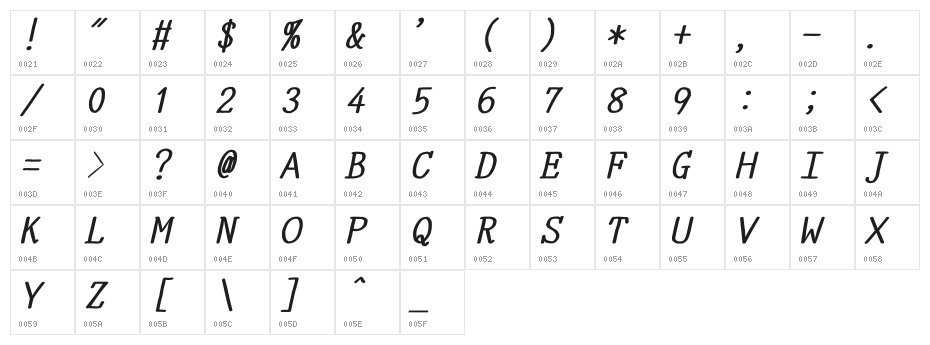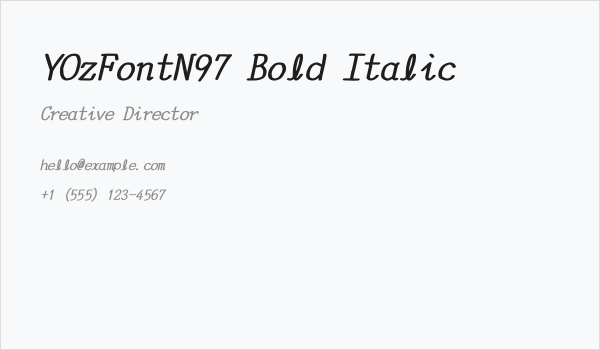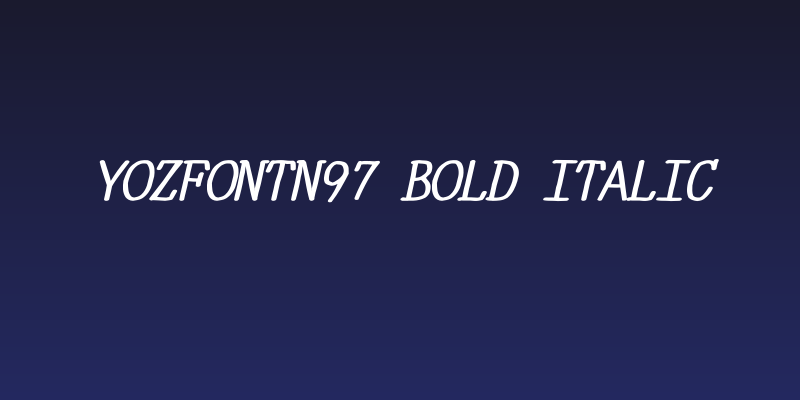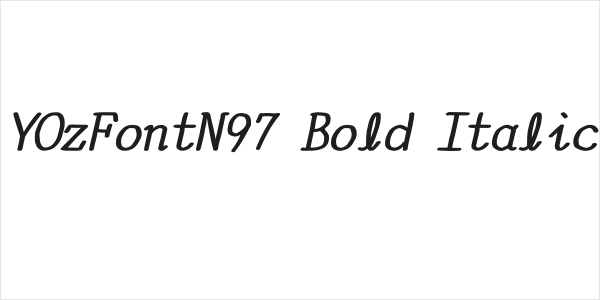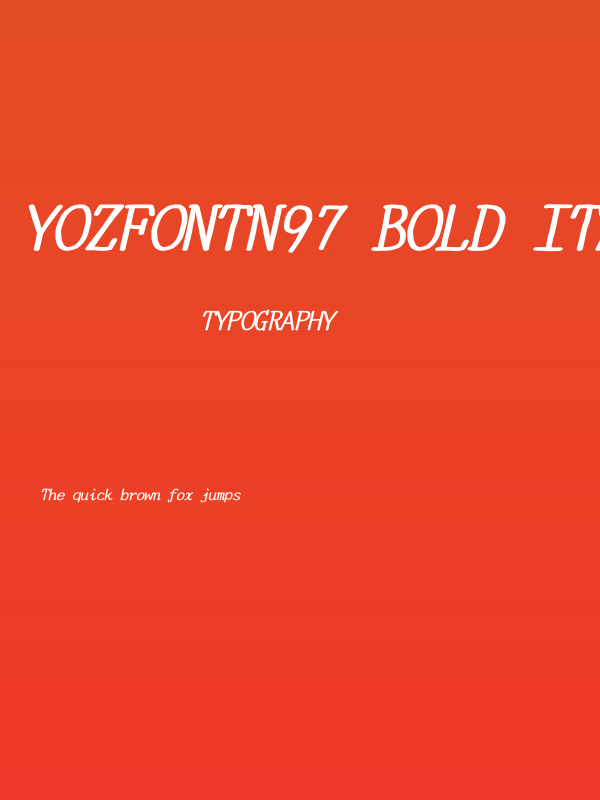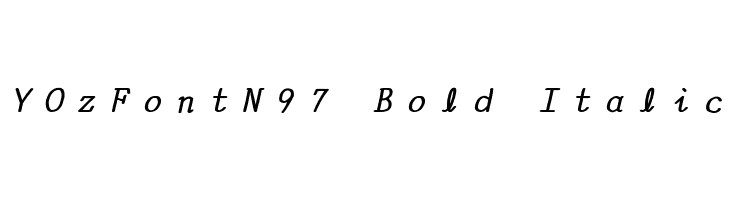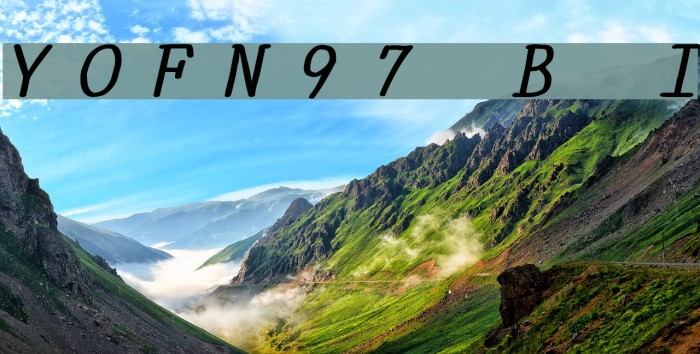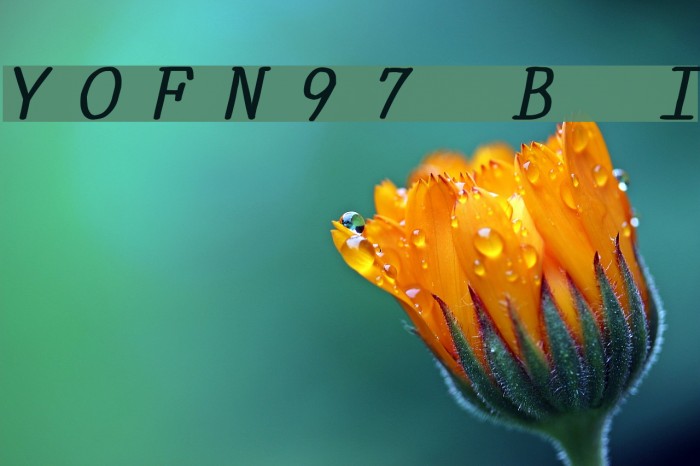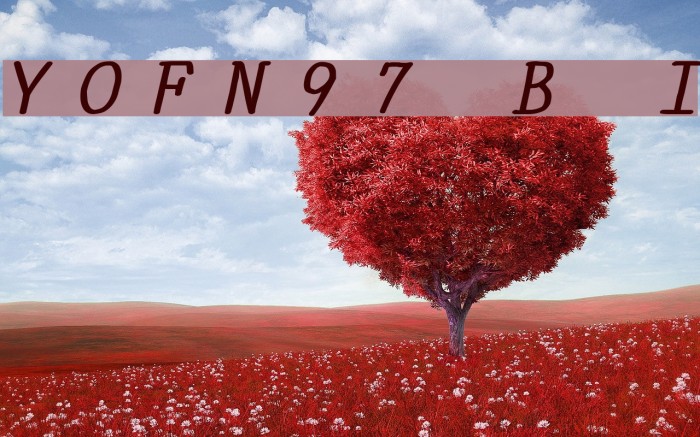
YOzFontN97 Bold Italic Font
YOzFontN97 Bold Italic Description
This font features a dynamic and expressive style with a bold and italicized appearance. The characters exhibit a slight slant, adding a sense of movement and fluidity. The strokes are moderately thick, providing a strong presence on the page. The uppercase letters are elegantly crafted with subtle curves, while the lowercase letters maintain a consistent flow. The numerals are clear and distinct, ensuring readability. Special characters are well-integrated, complementing the overall design. This font's unique style makes it suitable for creative and impactful designs.